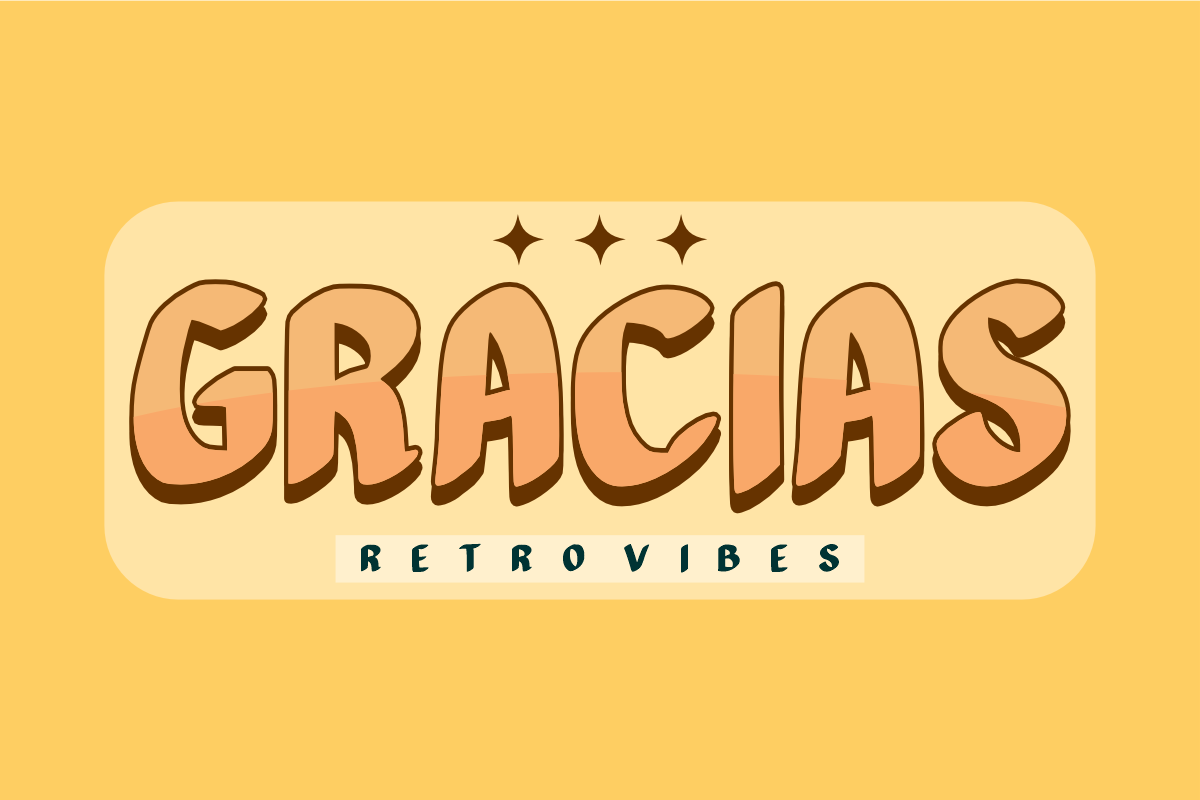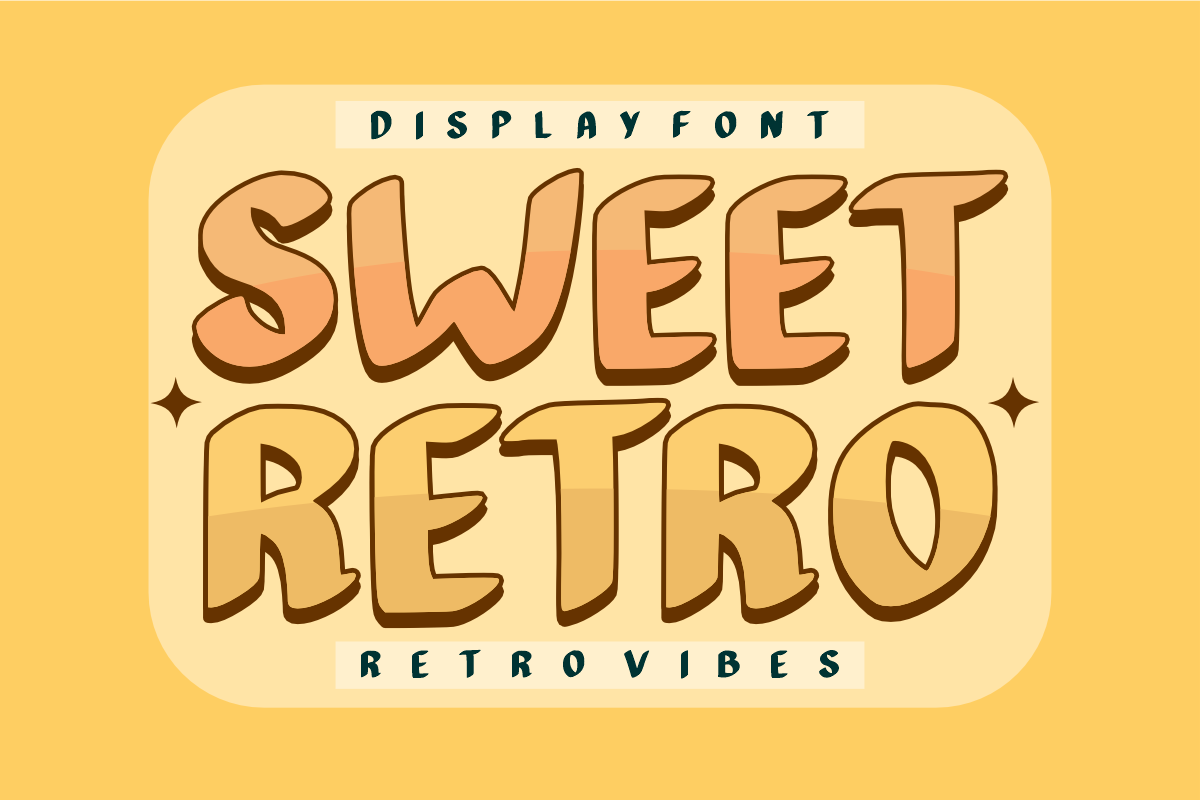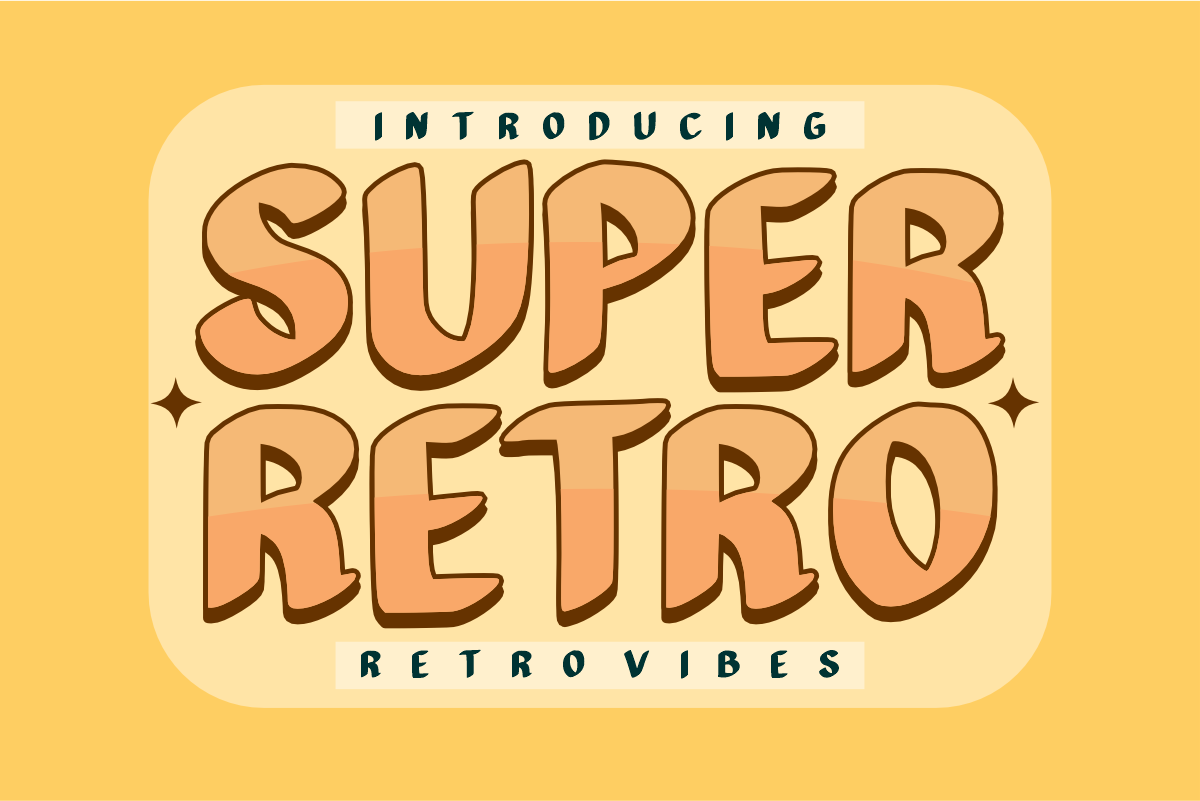
Super Retro - Groovy Vintage Font
Super Retro - Groovy Vintage Display Font
Super Retro is a bold, bubbly vintage display font inspired by classic 70s groovy typography, retro badges, and nostalgic pop culture. Featuring chunky, fun letterforms with smooth rounded curves and subtle dimensional outlines, this font brings instant vintage charm, warmth, and nostalgic energy to any creative project. Every character is cleanly vectorized to guarantee high-resolution prints and smooth, effortless cutting on Cricut and Silhouette machines.